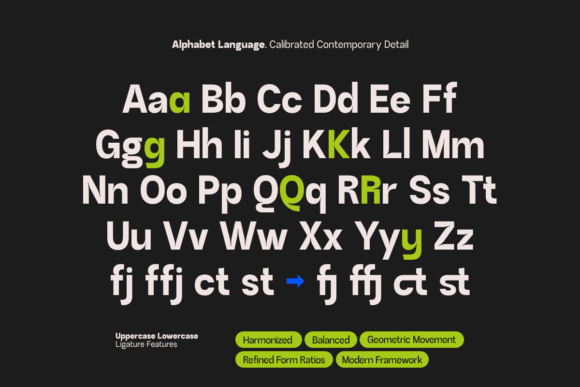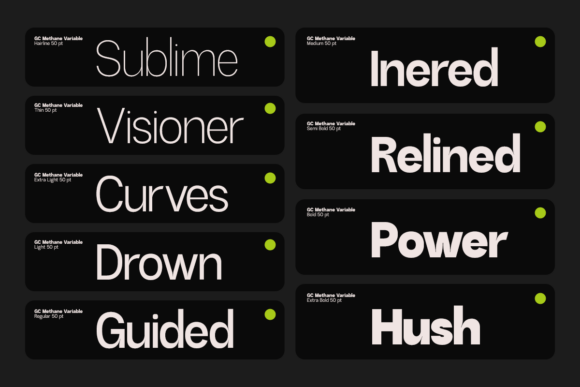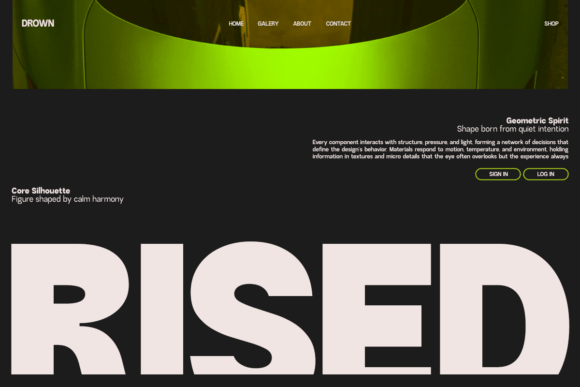
Introduction to Methane Font
Have you ever stared at a blank canvas, wondering which font will bring your creative project to life? The search for the perfect typography can be a daunting task, especially when you’re looking for a font that exudes modernity and versatility. As designers, we’ve all been there – pouring over fonts, weighing the pros and cons, and testing their limits in various design scenarios. But what if I told you there’s a game-changing font that can elevate your designs and make your creative process a whole lot smoother?
Enter the Methane Font, a cutting-edge sans serif typeface designed to deliver clarity, power, and flexibility in modern design systems. With its clean geometric foundations and confident proportions, this high-quality font is the perfect design resource for designers seeking a bold yet controlled voice for their creative projects.
Whether you’re working on a free download project or a commercial design venture, the Methane Font is an invaluable asset that can help you achieve your design goals. Its precise construction ensures consistency, readability, and impact, making it ideal for a wide range of applications, from tech-forward products to editorial layouts and UI/UX design. So, what are you waiting for? Dive into the world of the Methane Font and discover a new level of creative freedom.
Key Features of Methane Font
- Features a unique, modern design with a blend of geometric and organic elements.
- Perfect for use in digital and print design projects, from branding and logos to typography and graphics.
Honest Review: Methane Font
As a designer, I’m always on the lookout for high-quality design resources that can elevate my creative projects. Recently, I stumbled upon the Methane Font, and I must say it’s a great addition to my design arsenal.
- ✨ Clean and modern design aesthetic that works perfectly for minimalist designs
- ✨ Wide range of weights and styles to choose from, making it a versatile design resource
- ⚠️ Limited language support, which may be a concern for designers working with non-English clients
- ⚠️ Not as extensive a character set as some other fonts, which may limit its use in certain creative projects
Overall, I’m impressed with the Methane Font’s clean design and versatility. While it may not be perfect for every design scenario, it’s definitely a solid choice for designers looking for a high-quality, free download option.